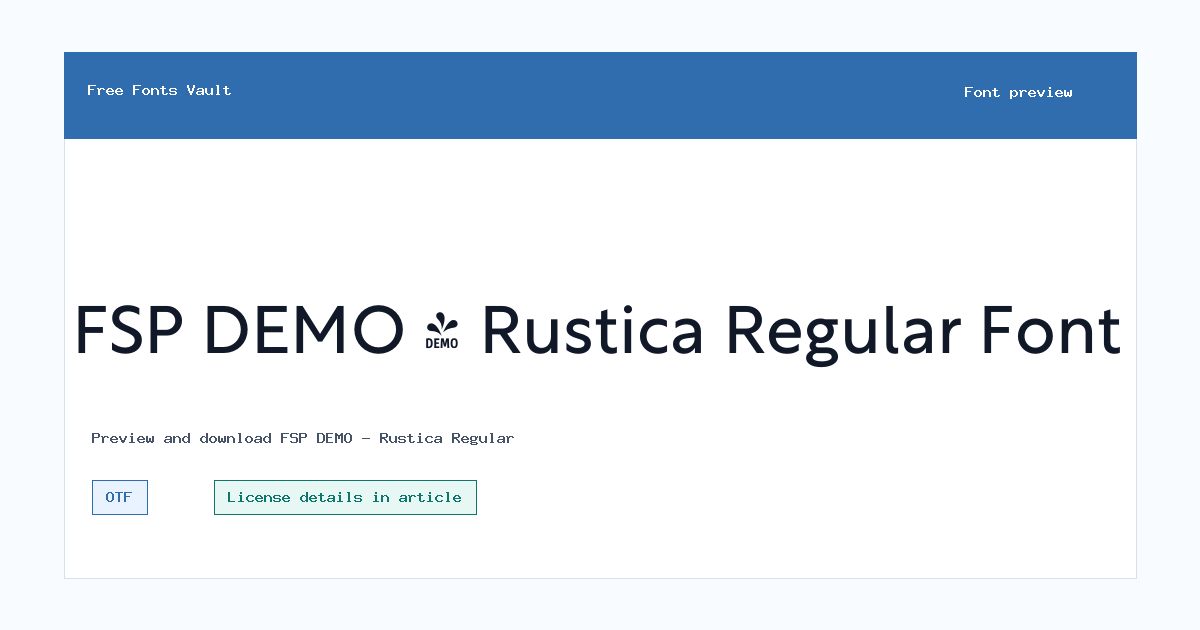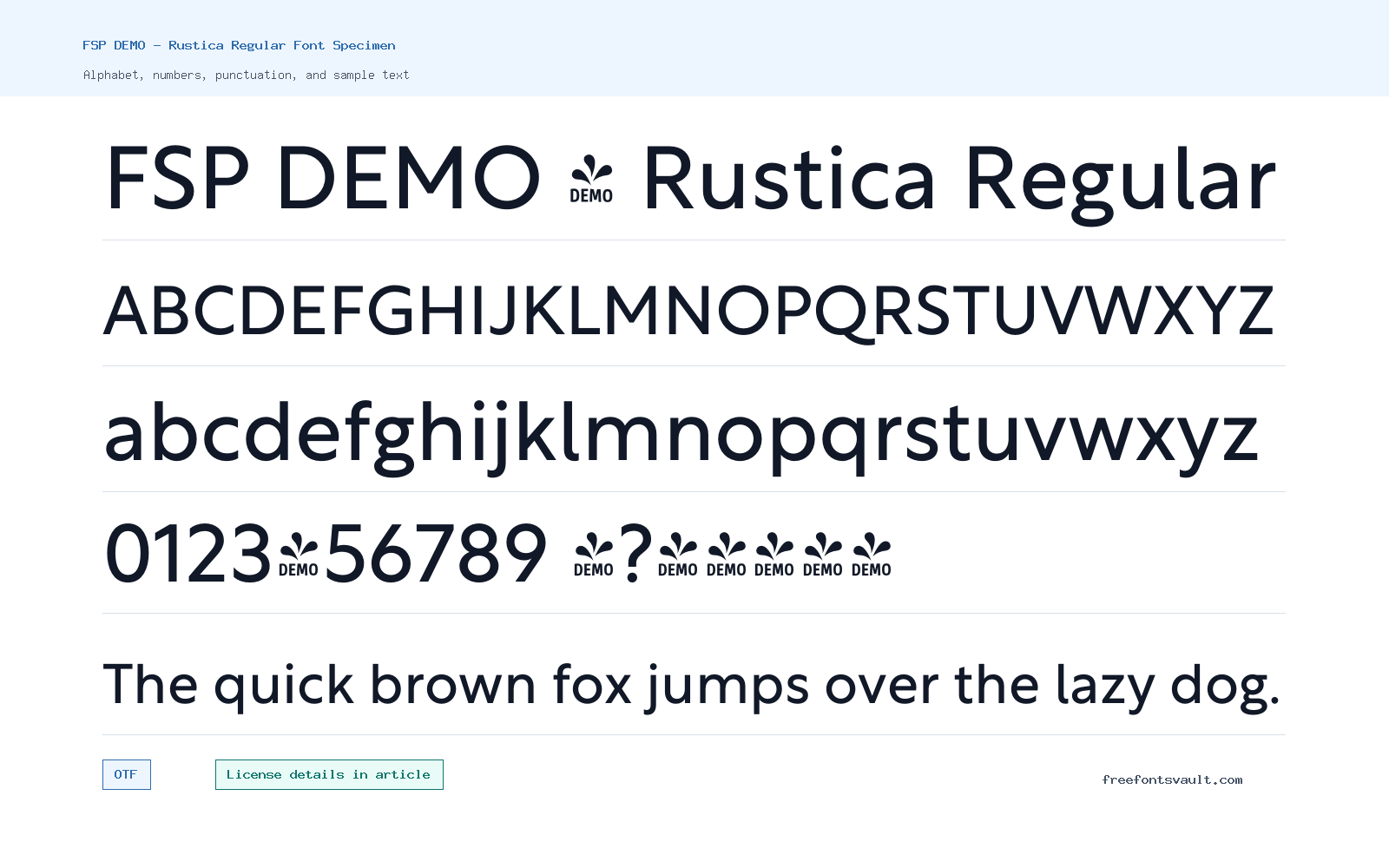
FSP DEMO - Rustica Regular
- Designer TipoType Team
- Foundry TipoType Team
FSP DEMO – Rustica Regular font.
FSP DEMO – Rustica Regular is a two-style OTF entry from TipoType Team, built for testing upright and italic text before choosing the right license.
About FSP DEMO – Rustica Regular
Rustica Regular gives you a practical pair for early layout testing: rustica-regular.otf and rustica-regularitalic.otf. Having both upright and italic regular styles makes it easier to preview a small hierarchy without changing families. Try the upright style for the main wording, then use the italic style for short emphasis, names, captions, or a softer secondary line.
Both variants are listed at 400 weight, so this is not a heavy display batch. It is better for clean, measured text treatments than for very loud poster typography. Use the preview with real names, titles, numbers, and punctuation, because a regular-weight face can change character quickly depending on tracking, line length, and background contrast.
- Normal 400 weight styles for measured titles, labels, and short text previews.
- TipoType Team listed as designer and foundry.
- Short headings, labels, menus, and name previews.
- Comparing upright and italic emphasis in a clean typographic layout.
- Editorial mockups, brand-direction boards, and presentation samples.
- Website title treatments where regular weight is enough.
Preview the same phrase in both upright and italic styles. Check spacing, numerals, punctuation, accents, and readability at the exact size you plan to use. For longer copy, pair Rustica with a comfortable reading font and reserve the italic for short emphasis.
Does Rustica Regular include italic?
Yes. This entry includes a regular upright style and a regular italic style.
Who made FSP DEMO – Rustica Regular?
TipoType Team is listed as the designer and foundry.